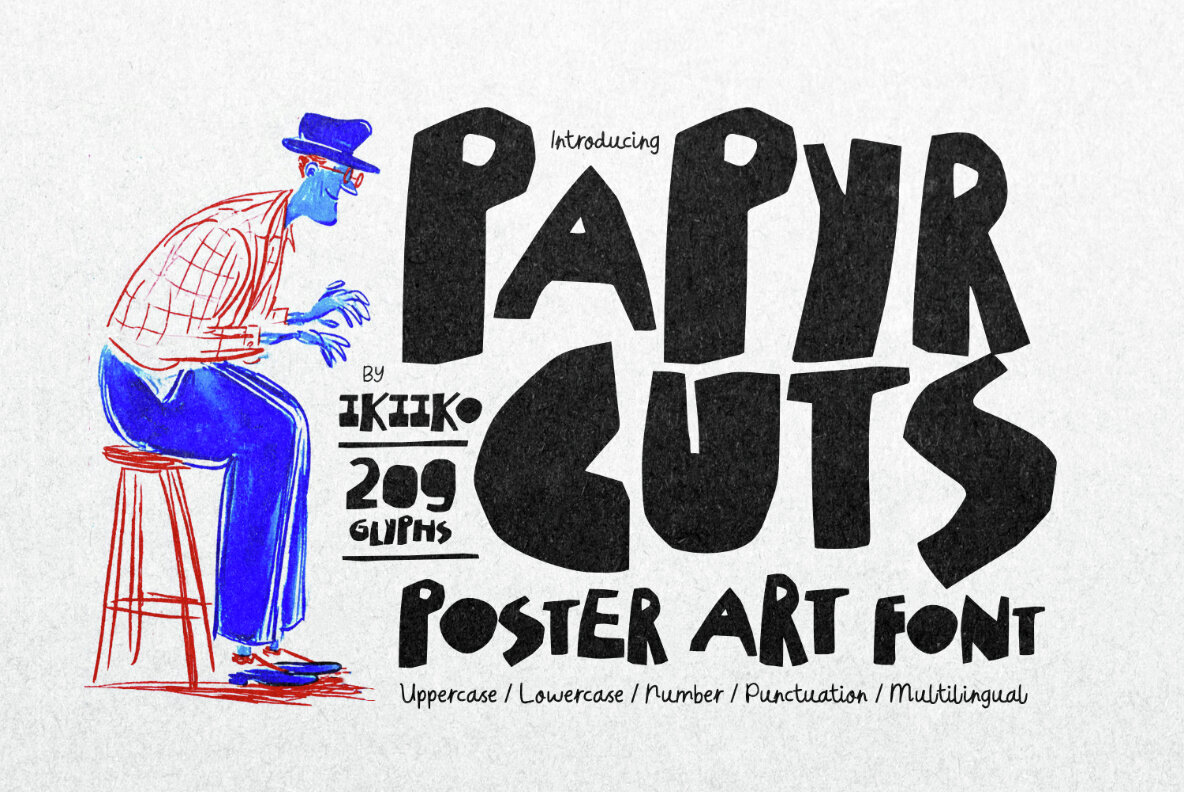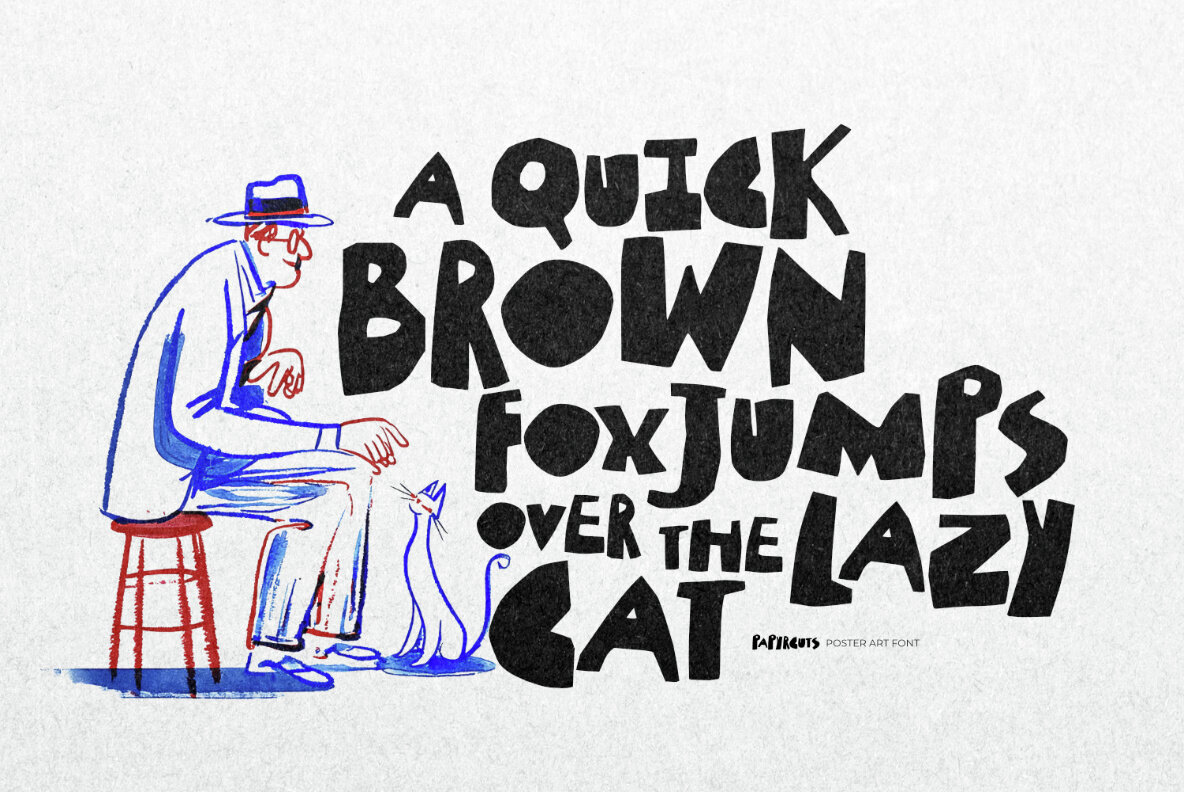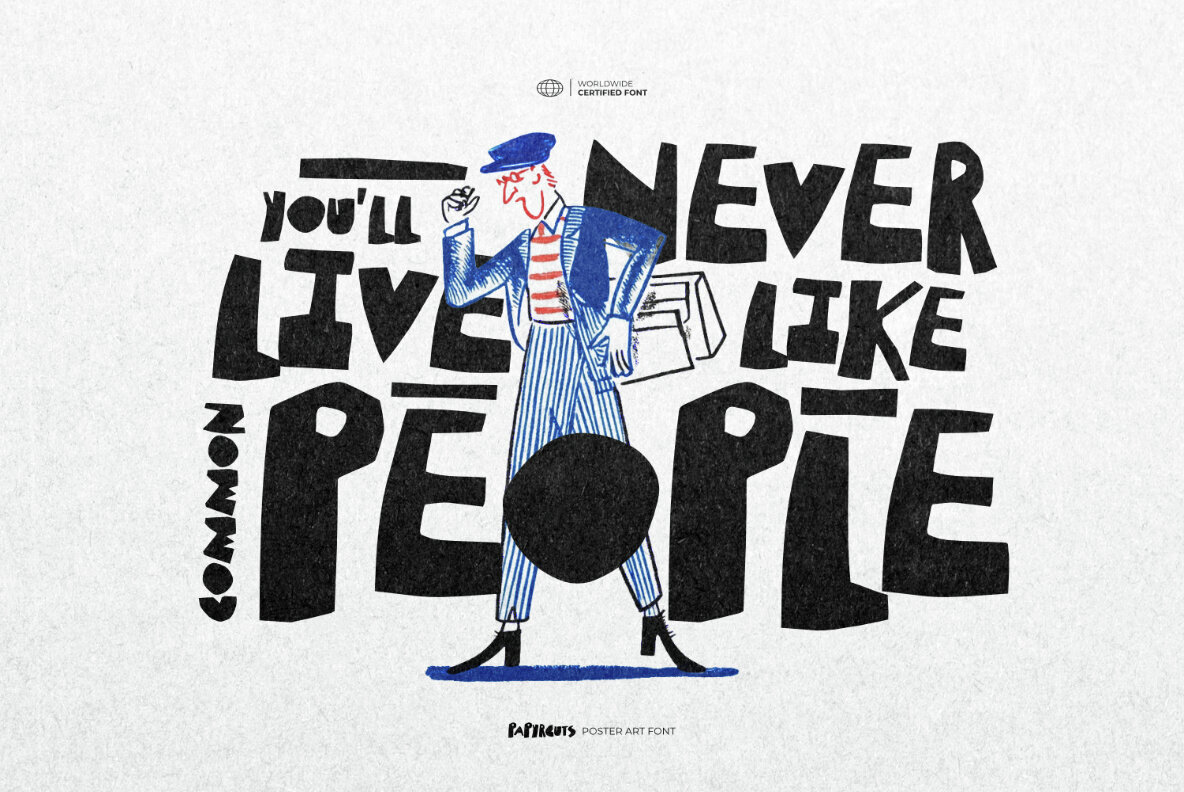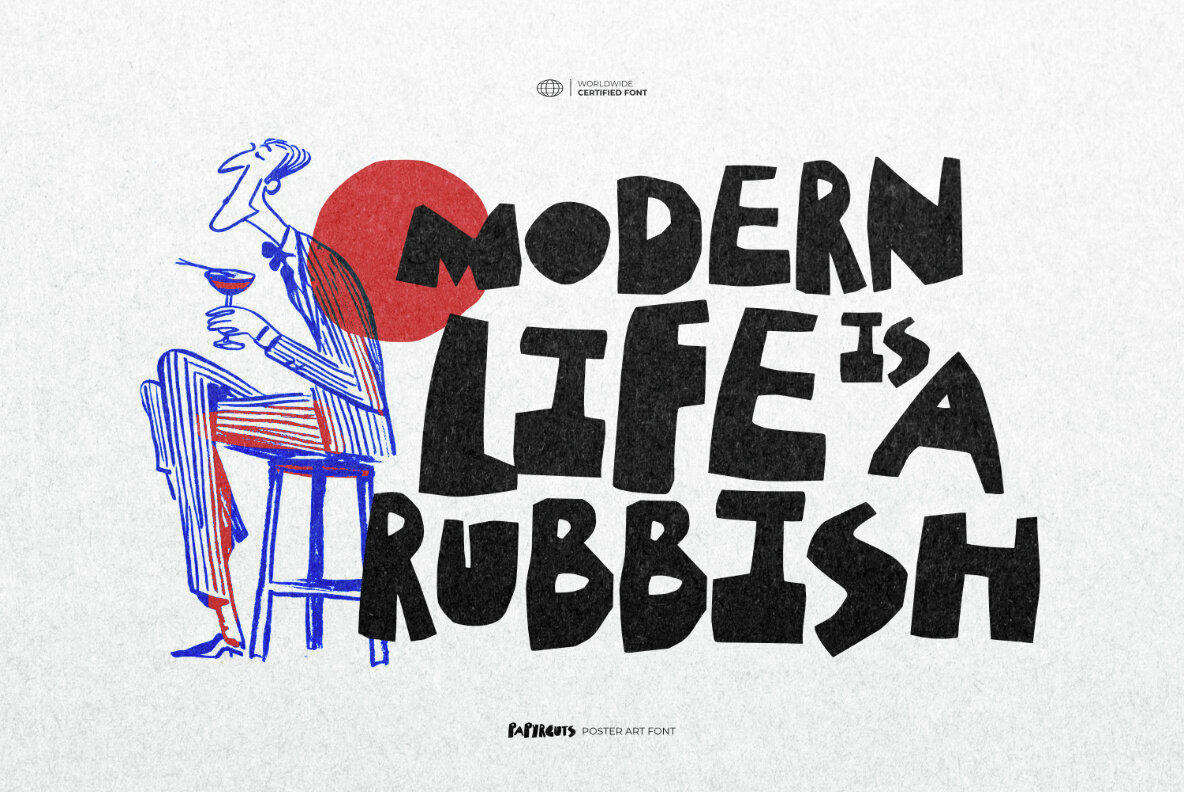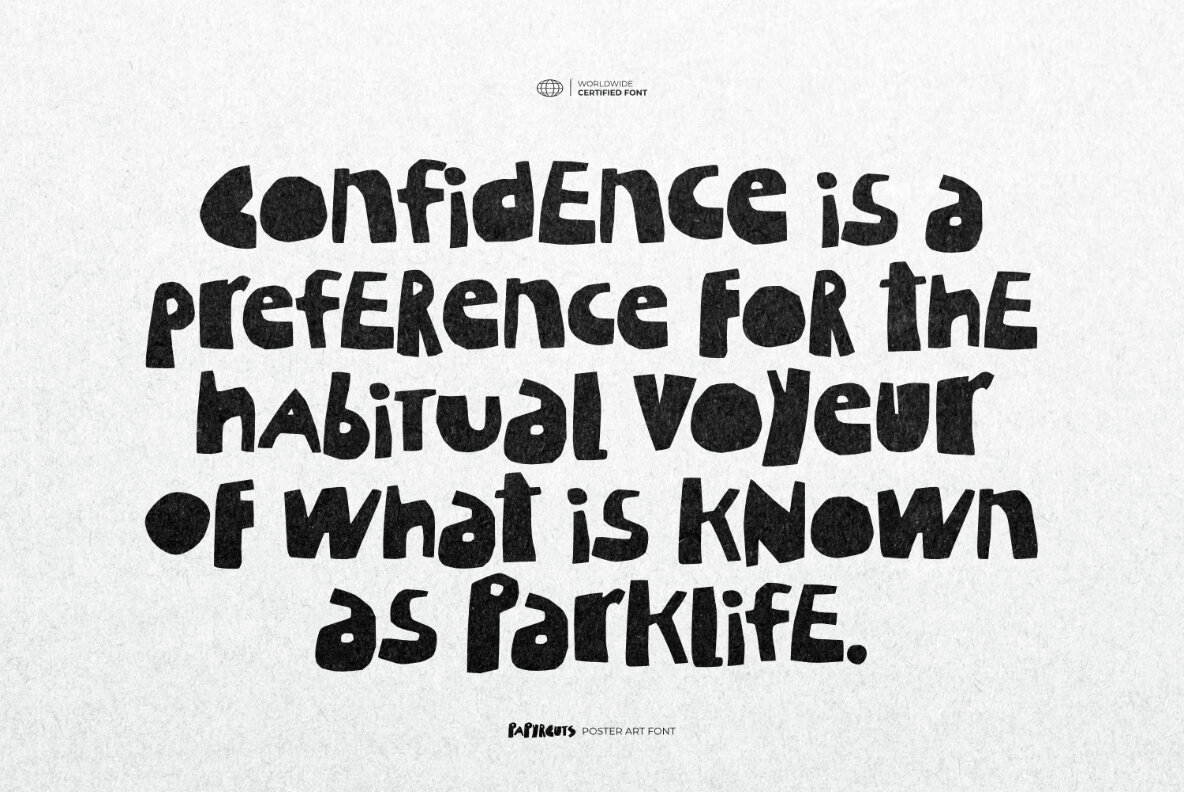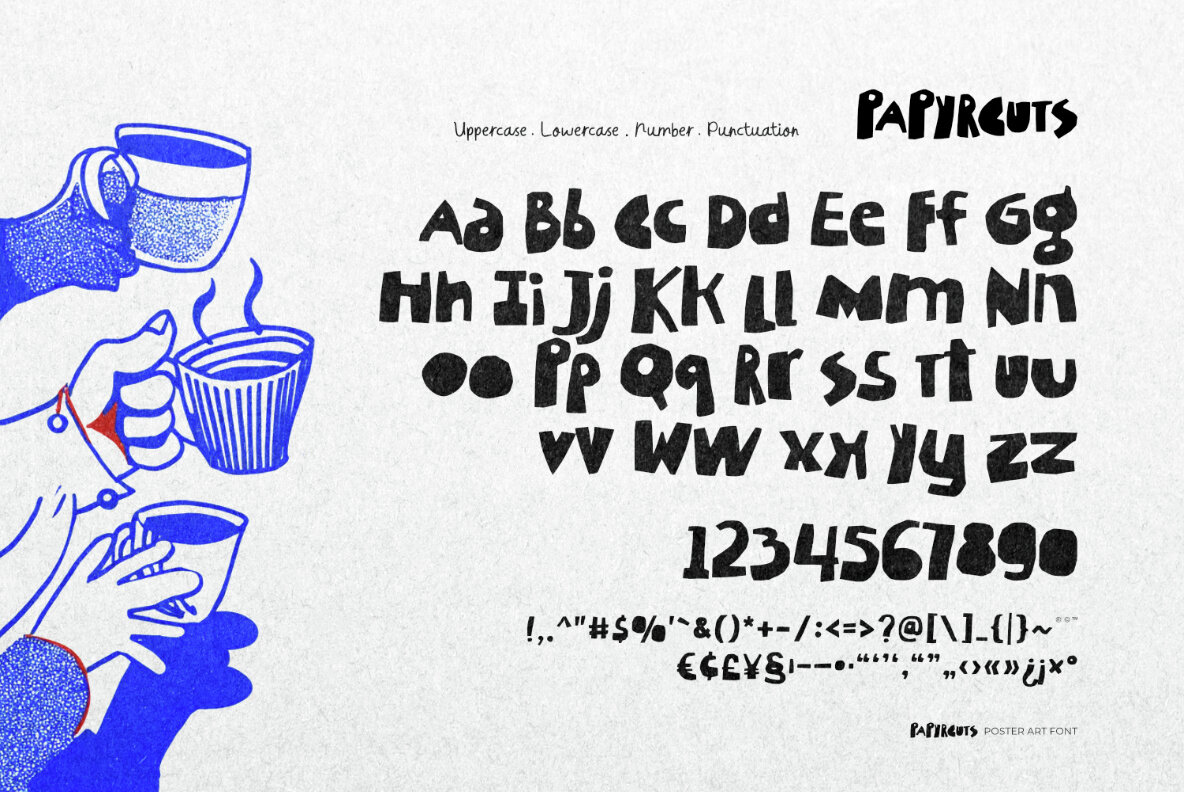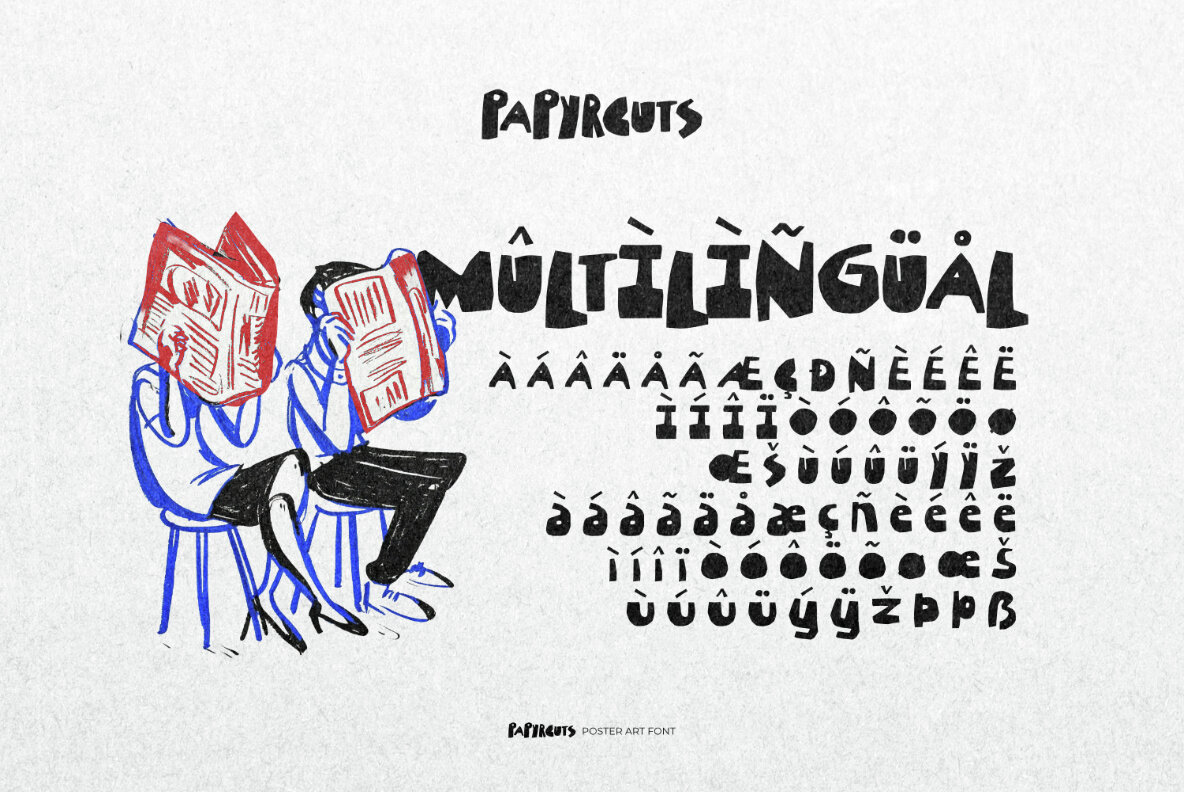
Papyrcuts Font
Papyrcuts
Papyrcuts embodies the energy of urban art and hipster flair, making it an ideal choice for vibrant poster designs, magazine headlines, and streetwear branding. Its bold Papercut Style exudes a raw, artsy attitude, as if each letter was spontaneously torn and arranged from real paper. This authentic DIY spirit imparts an edgy visual impact to your creative projects. For those crafting editorial spreads, art exhibition posters, or indie brand logos, Papyrcuts offers a rebellious, handmade touch. Designers favoring bold textures and experimental vibes will find this font adds a distinctive layer of art-school irreverence to their work. The font's irregular edges and daring cuts make each glyph a visual statement, mirroring the essence of modern art. Papyrcuts stands out in striking posters, gallery showcases, and bold branding applications. It is also perfect for editorial covers and indie zines, where attention-grabbing designs are paramount.Papyrcuts: A Bold Poster Art Font with Urban Style